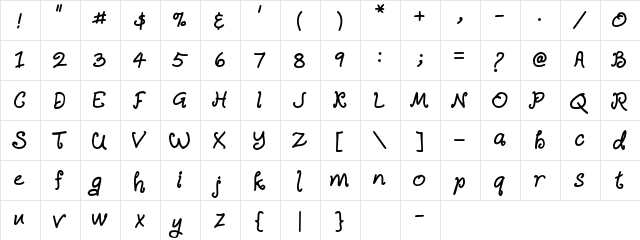
Falling Rain Regular
Design Context for Falling Rain Typeface
Falling Rain is a composed and adaptable typeface that performs quietly and consistently across a wide range of design contexts.